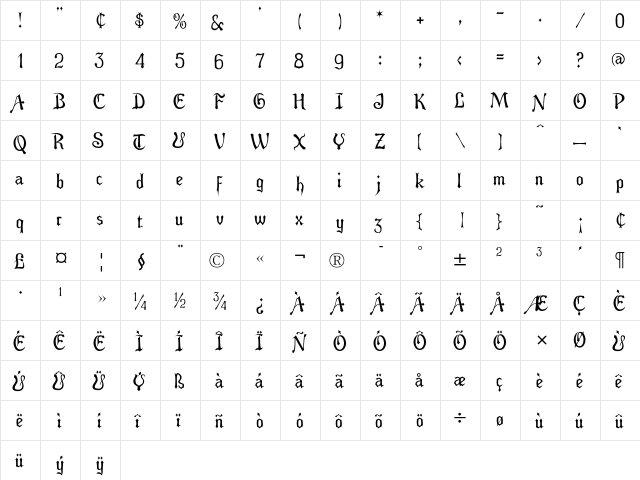
DrManta Regular
Design Context for DrManta Typeface
DrManta is a composed and adaptable typeface that performs quietly and consistently across a wide range of design contexts.